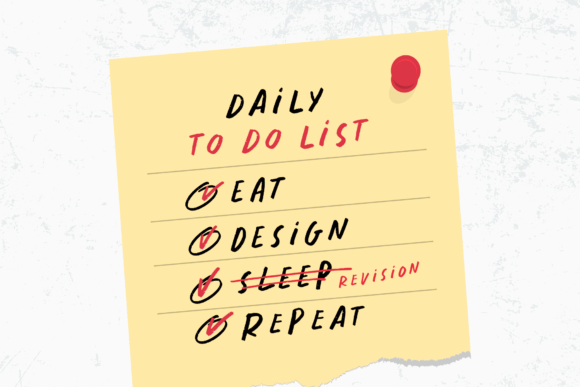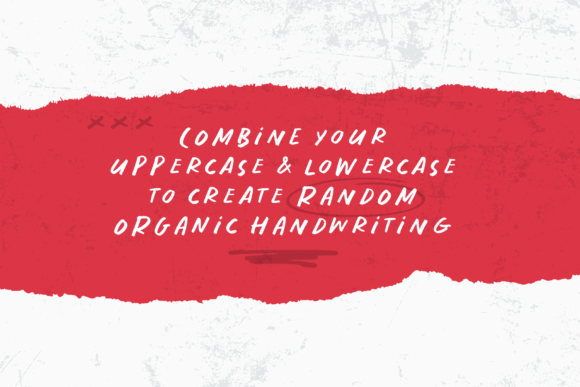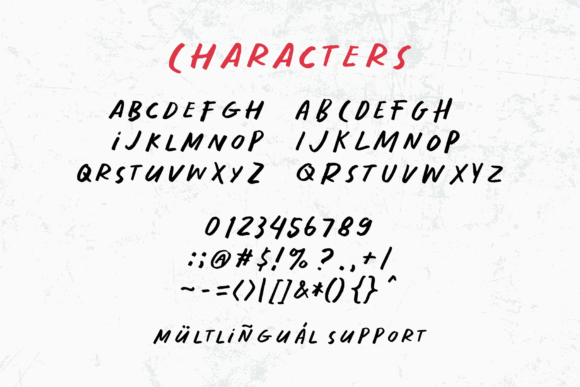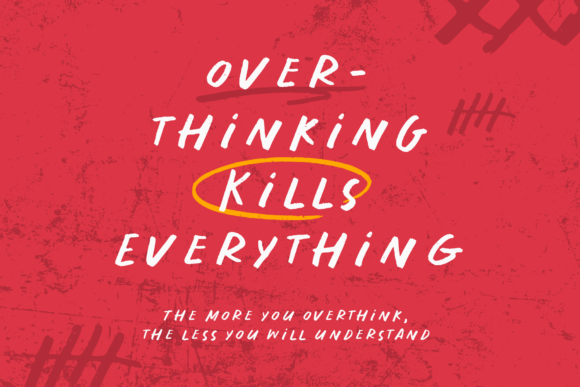
Diary Notes Font
About Diary Notes Font
“Diary Notes” is a fun and organic handwritten font that captures the essence of handwritten diary notes. This scribble font is inspired by the casual and personal nature of jotting down daily thoughts and plans. Whether you’re planning a late-night adventure or meeting friends for brunch, “Diary Notes” is designed to evoke a sense of spontaneity and creativity.
The organic and handwritten style of this font adds a personal touch to your text, making it perfect for projects that aim to convey a sense of authenticity and individuality. It’s a font that encourages a free-spirited and carefree vibe, aligning with the informal and unstructured nature of diary entries.
Whether used for journaling, social media posts, or other creative projects, “Diary Notes” brings a playful and whimsical quality to your text. Its fun and scribble-inspired design make it visually interesting and engaging.
The font’s name, “Diary Notes,” suggests a connection to personal thoughts and reflections. This makes it particularly suitable for projects that involve self-expression and sharing personal experiences.
In summary, “Diary Notes” is more than just a font; it’s a creative tool that captures the spontaneous and organic feel of handwritten diary entries. Its fun and scribbled style make it a charming choice for designers looking to add a touch of personality and playfulness to their projects.